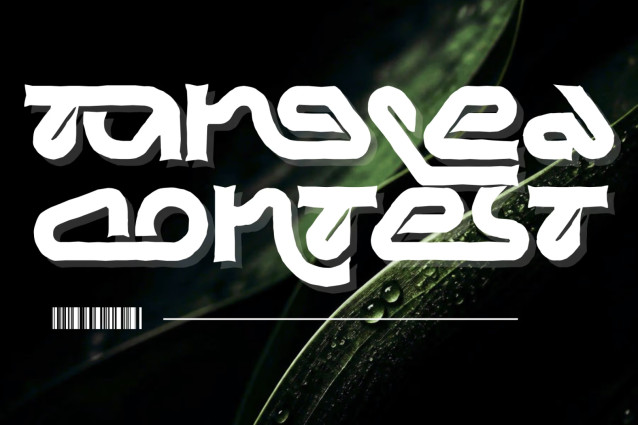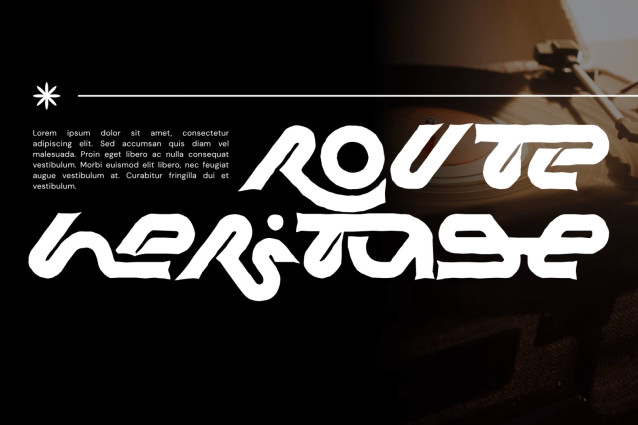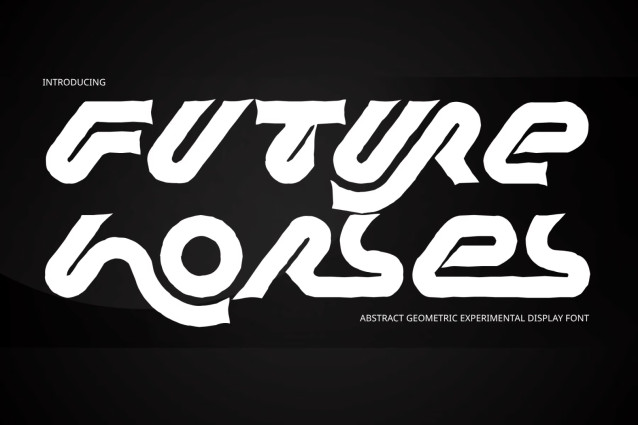
Future Horses – Futuristic Font
Future Horses – Futuristic Font – Futuristic Dynamic Techno & Experimental Tribal Display Font is a high-octane, experimental display typeface engineered at the dynamic intersection of futuristic speed geometry, cybernetic tribal loops, and Y2K acid typography. Defined by its forward-leaning slanted stance, fluid tubular strokes, and sharp inner thorn-like cutouts, this font channels an undeniable sense of velocity and high-tech underground energy.
Designed to effortlessly turn display headlines into custom futuristic logotypes, Future Horses merges smooth circuit-like curves with sharp, aggressive accents and extended baseline swashes. Its bold weight and fluid movement make it the definitive typographic choice for esports brandings, sci-fi racing titles, electronic music festival posters, techwear apparel graphics, futuristic key visuals, and avant-garde editorial covers.